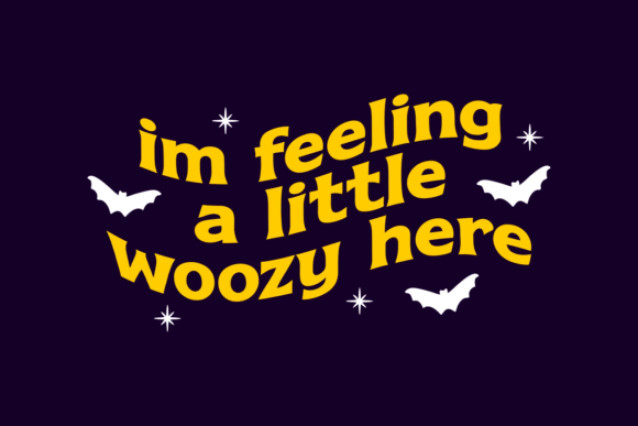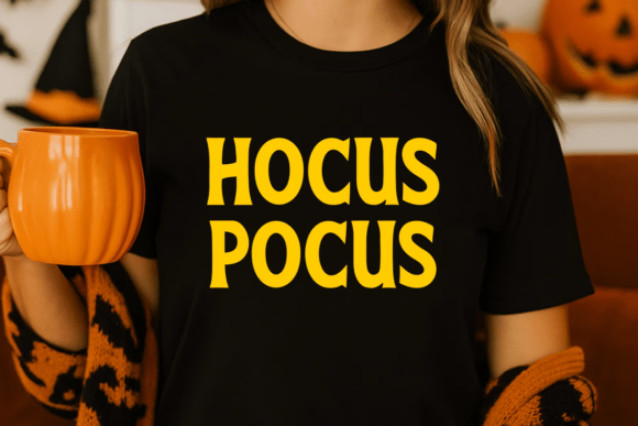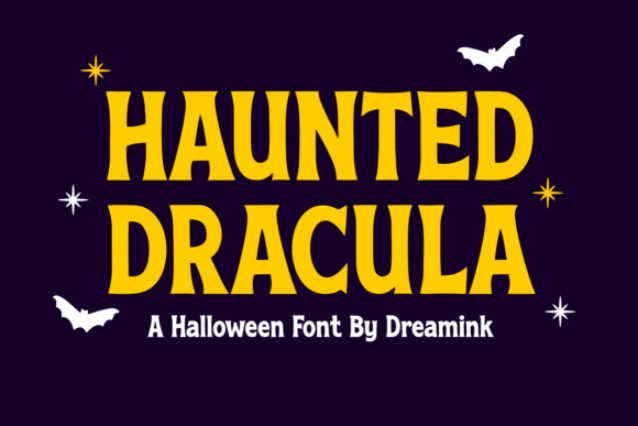
Get into the spooky spirit with Haunted Dracula, a bold and playful Halloween display font that’s perfect for all your eerie, creepy, and kooky creations! Inspired by vintage horror movie posters and classic Halloween vibes, this font combines sharp curves with quirky flair, making it ideal for any project that needs a touch of frightful fun.
Whether you’re designing party invitations, spooky apparel, haunted house signage, or Halloween-themed crafts, Haunted Dracula will cast the perfect spell. Its bold characters and whimsical style make it both eye-catching and readable, even from a distance